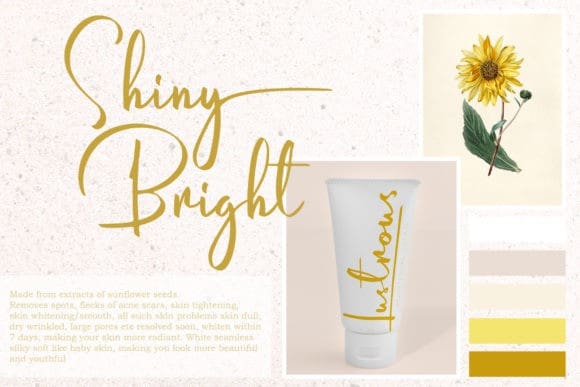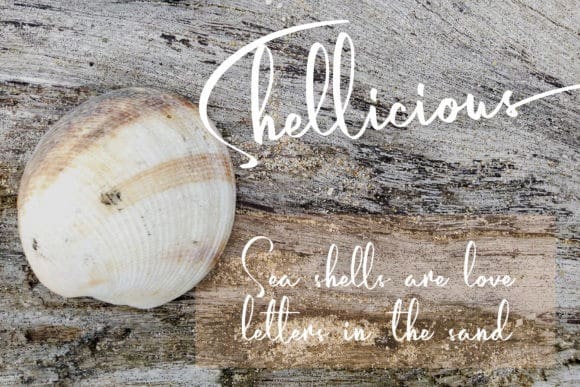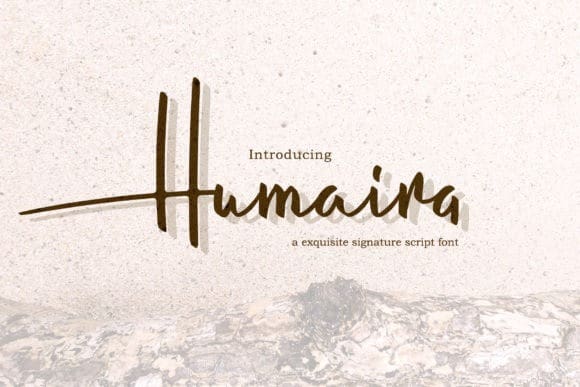
Humaira Font
Humaira Font, is a exquisite signature font. It comes in two styles which you can mix and match perfectly to give your design a natural style.
It’s perfect for signatures, logos, photography, packaging products, branding, print designs, invitations, watermarks, magazines, and much more!